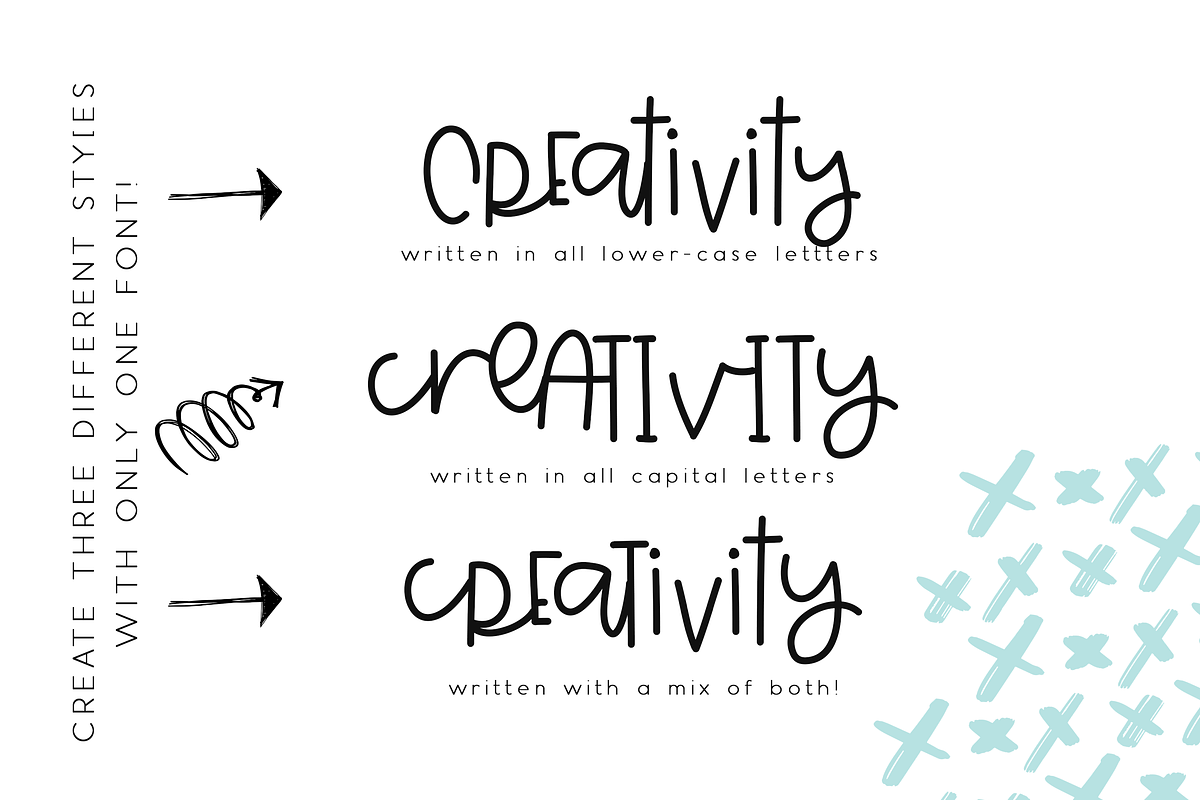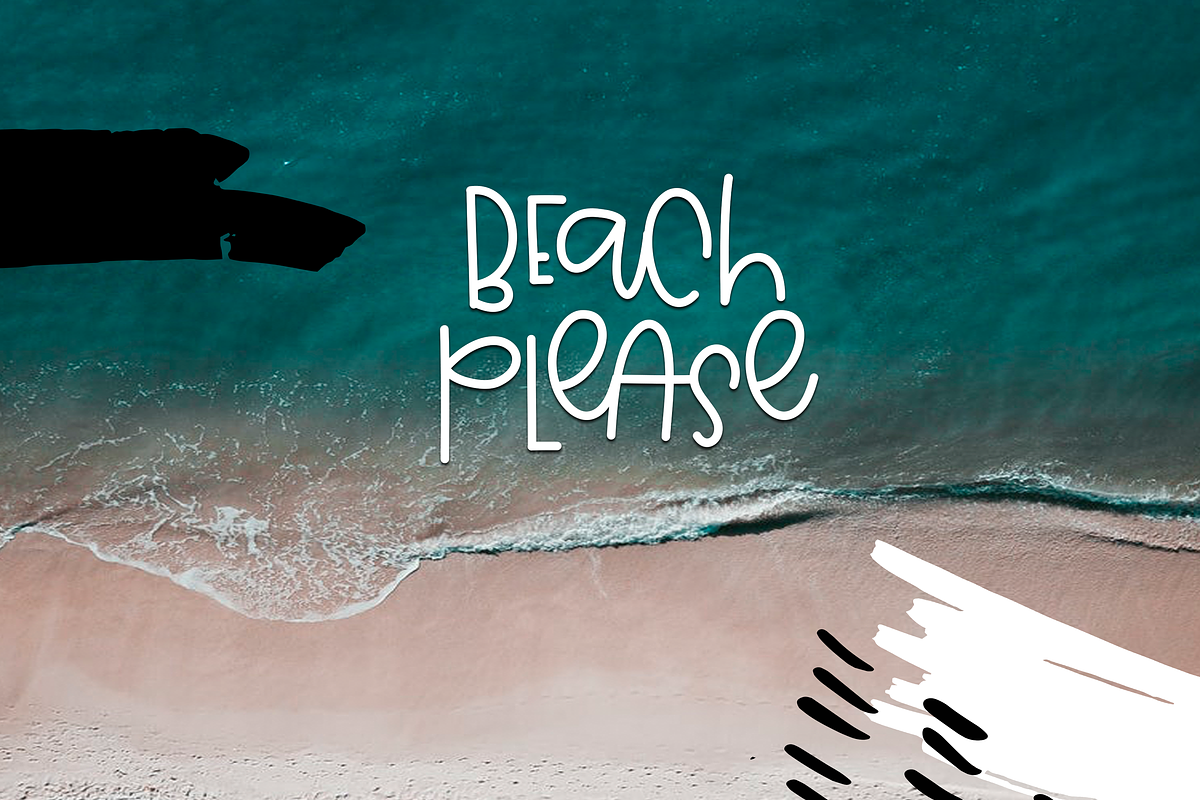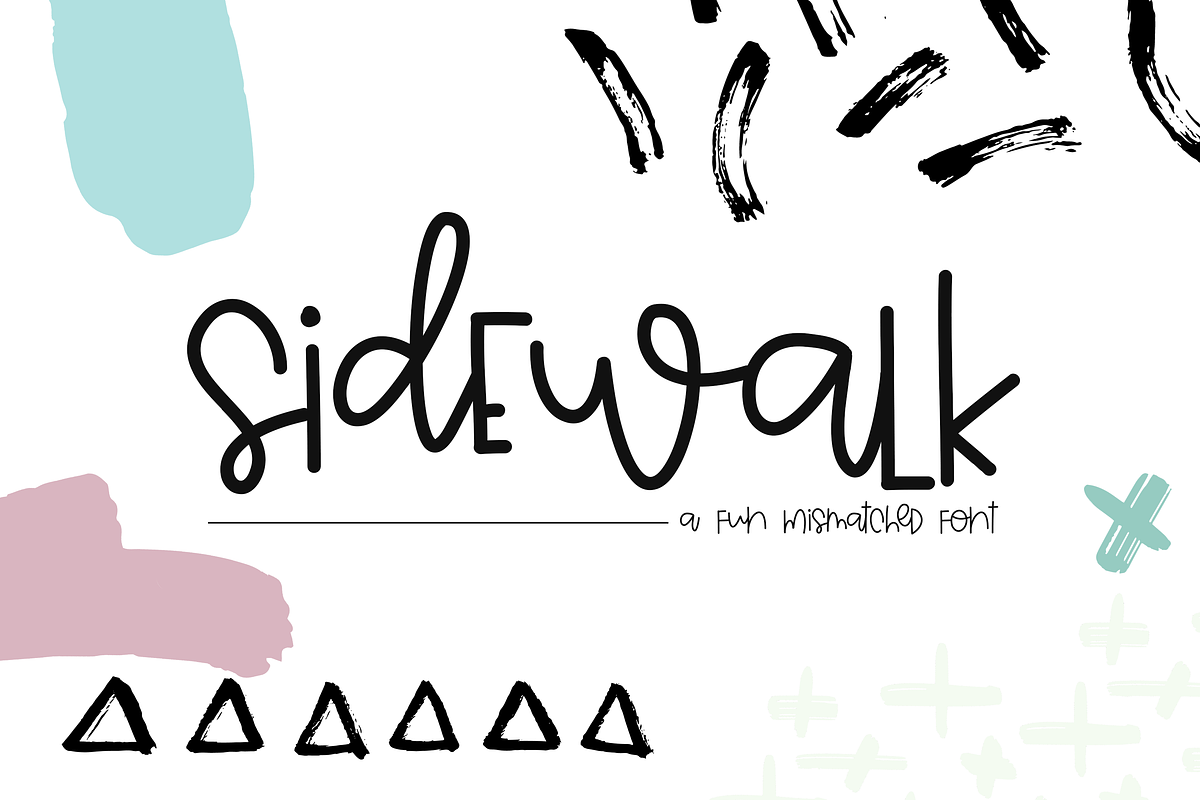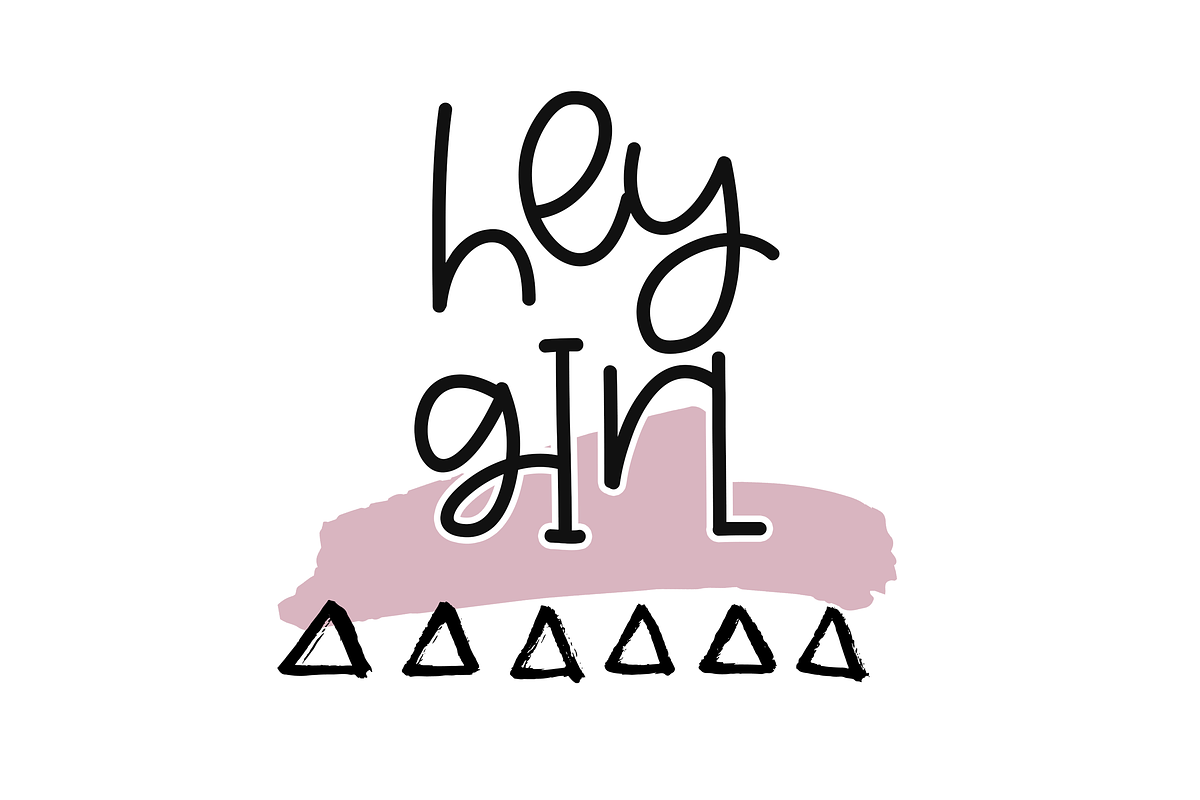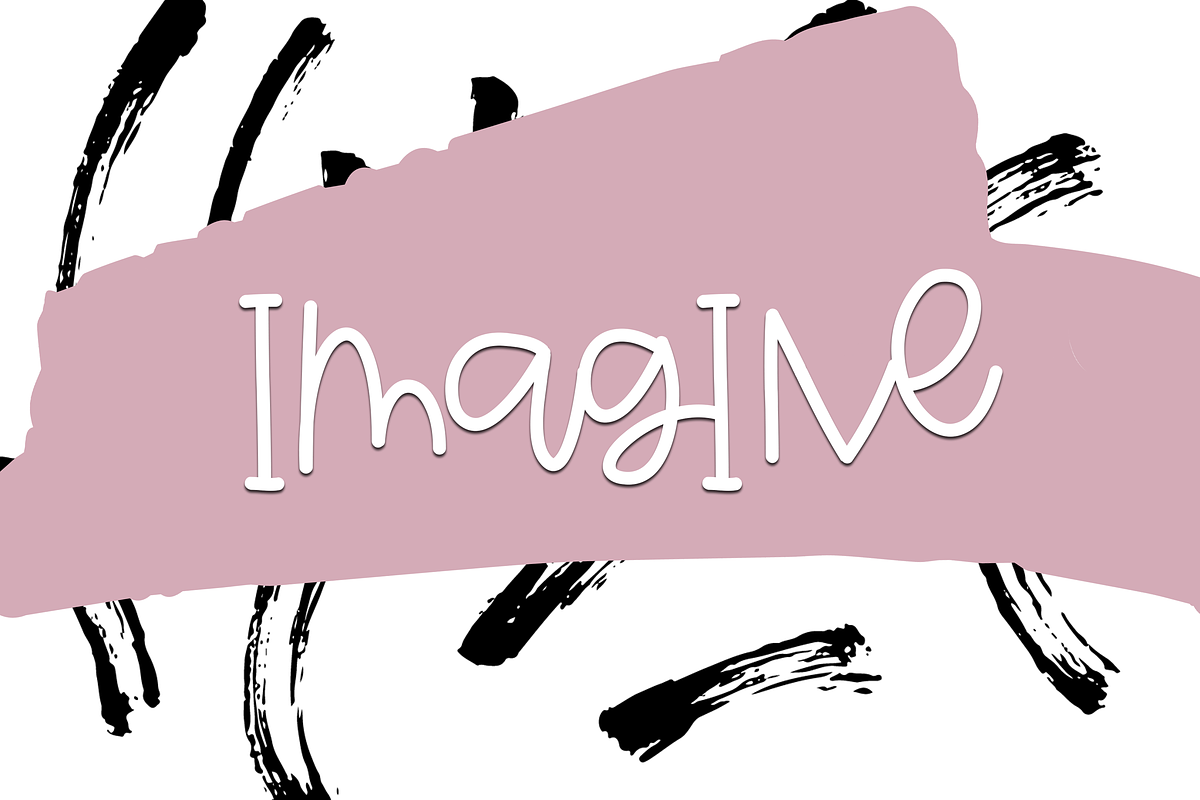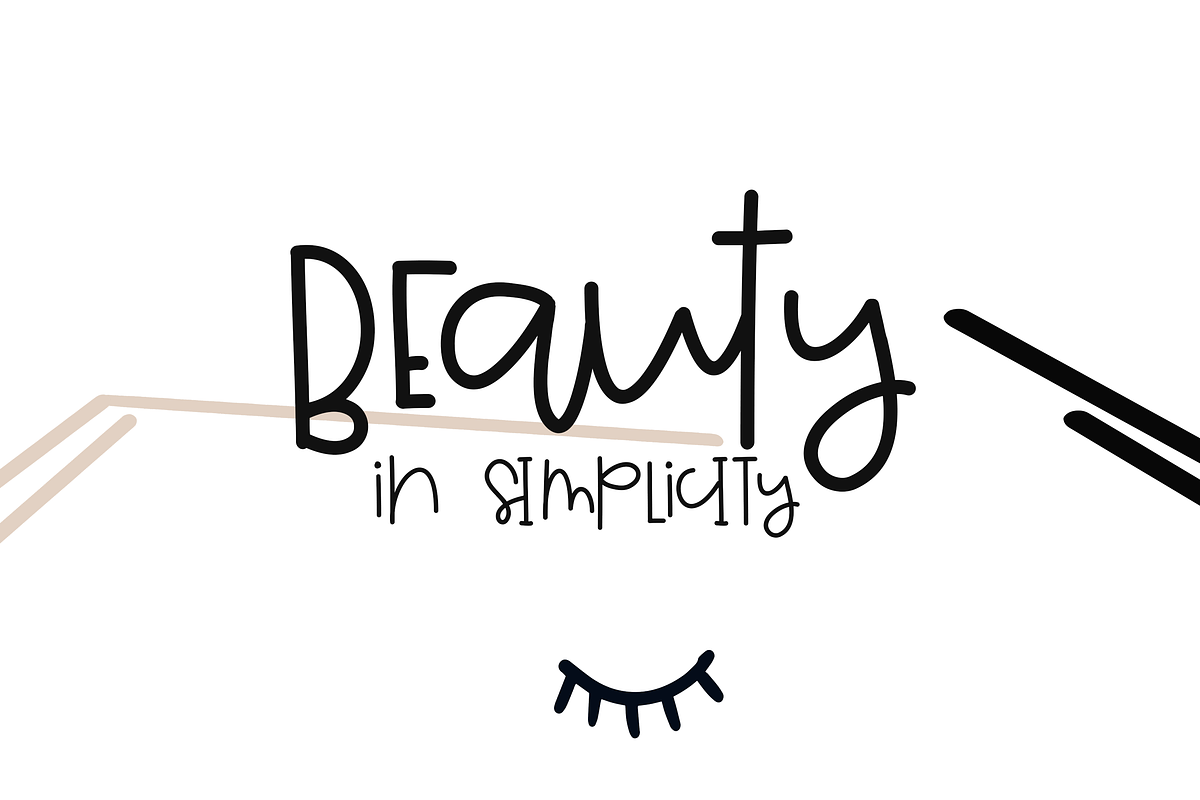
Sidewalk - A Fun Mismatched Font
Sidewalk is a fun, mismatched font. It has a unique and quirky look to it!
You can get three styles in one with this font:
Type in all capital letters
Type in all lowercase letters
Type with a mix of both
This font is perfect for quotes, headings, blogs, logos, invitations and more!